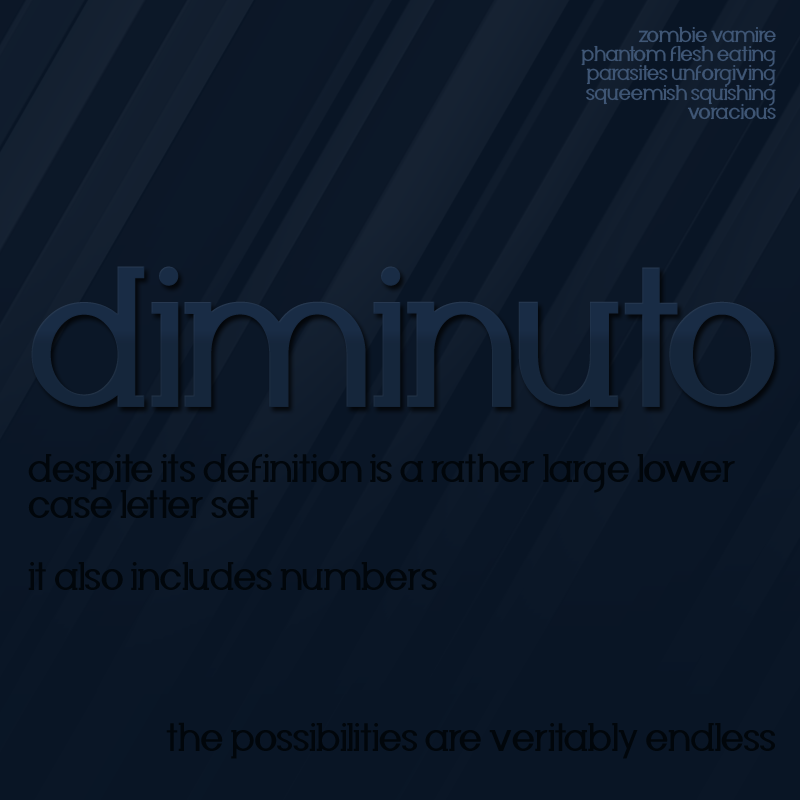
Check out my new Font Blog to stay up to see when I release new fonts! http://murafonts.blogspot.com/ ----------------------- This font, believe it or not, I have been working on and refining for quite some time. I have already used it for some pretty sweet logo mockups and such. It's a slightly unique and quirky serif font. It is a lower case letter set which also includes a number set. I am using it as a reference for a new sans serif font as well, which is looking to be incredibly sexy. Enjoy! ----------------------- This is free to do with whatever you wish, personal or commercial. Just don't claim ownership, sell it, redistribute it, or be a jerk with it. Please DO NOT download this font and redistribute it on another website!!! It might be cool if you use the font to either credit MuraKnockout Media or Michael Muranaka, or show me how you used it! Enjoy! |